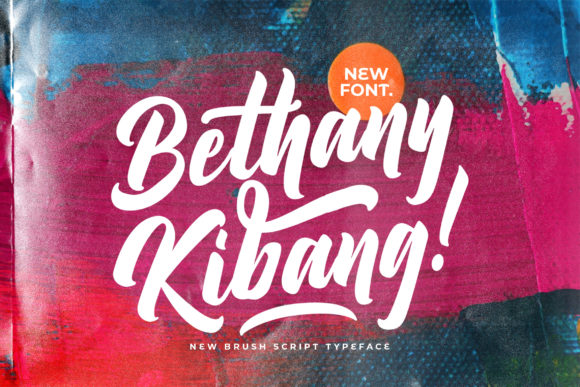
Bethany Kibang Font: Elevate Your Designs with a Unique Vintage Style
Are you tired of using the same old fonts for your designs? Look no further than the Bethany Kibang font, a strong and bold script font that’s sure to take your creative projects to the next level. With its curved, rounded, and uniquely vintage style, this font is perfect for branding and adding a touch of personality to your work.
What Makes Bethany Kibang Font Stand Out?
Bethany Kibang font is not just another script font. Its distinctive vintage style sets it apart from other fonts, making it perfect for designers and crafters looking to add a touch of nostalgia and elegance to their work. The font’s curved and rounded lines give it a soft, yet strong and bold appearance that’s sure to grab attention.
Perfect for Branding and Creative Projects
Whether you’re working on a branding project, creating a logo, or designing a craft, the Bethany Kibang font is the perfect choice. Its unique style and versatility make it suitable for a wide range of applications, from business cards and brochures to social media graphics and website headers.
One of the best things about the Bethany Kibang font is that it’s PUA (Private Use Area) encoded. This means that you can access all of the glyphs and swashes with ease, giving you even more creative freedom to experiment with different styles and combinations. With PUA encoding, you can:
• Access a wide range of glyphs and swashes
• Easily customize your text with different styles and flourishes
• Create unique and eye-catching designs that stand out
Tips for Using Bethany Kibang Font
To get the most out of the Bethany Kibang font, here are a few tips to keep in mind:
• Use it for headlines and titles to add a touch of elegance and sophistication
• Experiment with different glyphs and swashes to create unique and eye-catching designs
• Pair it with other fonts to create a contrasting look and add visual interest
• Use it for branding and packaging to create a memorable and recognizable identity
Who Can Benefit from Bethany Kibang Font?
The Bethany Kibang font is perfect for:
• Graphic designers looking to add a touch of elegance and sophistication to their work
• Crafters and DIY enthusiasts looking to create unique and eye-catching designs
• Branding and marketing professionals looking to create a memorable and recognizable identity
• Small business owners looking to elevate their brand with a unique and stylish font
In conclusion, the Bethany Kibang font is a strong and bold script font that’s perfect for designers and crafters looking to add a touch of elegance and sophistication to their work. With its unique vintage style, PUA encoding, and versatility, this font is sure to elevate your creative projects and help you stand out from the crowd. So why wait? Add the Bethany Kibang font to your collection today and start creating stunning designs that come alive!